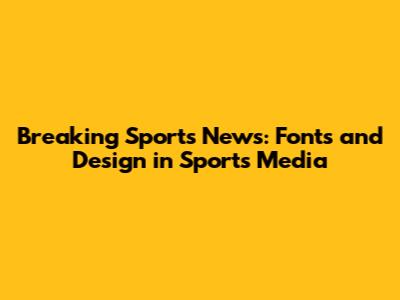
Breaking Sports News: Fonts And Design In Sports Media
Hey guys! Ever stopped to think about the fonts used in sports news? It might seem like a small detail, but the font and overall design of sports media can seriously impact how we perceive the information. Let's dive into the world where oscosoccsc, scsportssc, and news fonts collide, exploring how they shape our experience as sports fans.
The Power of Typography in Sports News
When it comes to delivering sports news, the font choice is more than just an aesthetic decision; it's a crucial element that influences readability, engagement, and the overall perception of the content. Think about it: a clear, modern font can convey a sense of trustworthiness and professionalism, while a cluttered or outdated font might make the news source seem less credible. In the fast-paced world of sports, where updates and breaking stories are constantly emerging, the ability to quickly and easily digest information is paramount. This is where typography steps in as a silent but powerful communicator. Fonts used in headlines need to grab attention instantly, while the body text requires a design that ensures comfortable reading for extended periods. The selection of a font involves balancing visual appeal with functional clarity. Moreover, different sports may evoke different feelings, and the font can be chosen to reflect that. For instance, a sleek, sans-serif font might be perfect for a high-tech sports broadcast, while a more traditional serif font could lend gravitas to a historical sports documentary. The impact of a well-chosen font extends to branding as well. Consistent use of specific fonts across a sports news outlet's platforms—website, social media, and broadcast—can reinforce brand recognition and loyalty. This consistency helps create a cohesive identity that fans can easily identify and trust. Ultimately, the power of typography in sports news lies in its ability to enhance the storytelling, making the information more accessible and engaging for the audience. So next time you're reading up on your favorite team, take a moment to appreciate the font; it's working harder than you might think to keep you informed and entertained.
Decoding "oscosoccsc" and "scsportssc"
Okay, let's be real. "oscosoccsc" and "scsportssc" might look like a jumble of letters at first glance, but they probably represent specific categories, hashtags, or even internal codes used within a sports news organization. Imagine oscosoccsc being an internal tag for soccer news, maybe used by editors to quickly sort and categorize content. Similarly, scsportssc could easily stand for South Carolina Sports News. These abbreviations help streamline the flow of information within newsrooms, especially when dealing with a high volume of stories coming in from various sources. Think of it like this: news organizations need efficient ways to manage their content. Tags and categories are essential tools for keeping everything organized and easily searchable. Without these internal systems, it would be chaos trying to find specific articles or updates within their databases. Moreover, these tags might extend beyond internal use. They could also appear as hashtags on social media platforms, allowing fans to quickly find relevant news and engage in conversations. A well-crafted hashtag can significantly increase the visibility of a news story, drawing in more readers and sparking discussions. So, while oscosoccsc and scsportssc may not be immediately recognizable to the average sports fan, they play a vital role in the behind-the-scenes operations of sports news outlets, ensuring that information is delivered efficiently and effectively. They exemplify how even seemingly obscure details can contribute to the overall functioning of the sports media ecosystem.
News Fonts: A Deep Dive
The font used in news, especially sports news, plays a huge role in how we process information. The right font can make reading a breeze, while the wrong one can turn it into a total chore. Think about the fonts you see on your favorite sports websites or apps. Chances are, they're clean, legible, and easy on the eyes. This is no accident! News organizations carefully select fonts that enhance readability and convey a sense of professionalism. Serif fonts, like Times New Roman or Georgia, have small decorative strokes at the end of each letter. These fonts are often used for body text because they're considered easy to read in large blocks. Sans-serif fonts, like Arial or Helvetica, lack these decorative strokes and tend to look more modern and clean. They're often used for headlines and subheadings to grab attention. Beyond readability, fonts also have a psychological impact. A bold, strong font can convey authority and confidence, while a lighter, more elegant font might suggest sophistication. News organizations use these subtle cues to influence how we perceive the information they're presenting. For example, a serious investigation might use a more traditional and authoritative font, while a lighthearted sports blog might opt for a more playful and modern font. Moreover, the choice of font can also reflect the overall branding of the news organization. Consistent use of specific fonts across all platforms—website, social media, and print—helps create a cohesive and recognizable brand identity. This consistency builds trust and reinforces the organization's credibility. Ultimately, the selection of a news font is a strategic decision that balances readability, aesthetics, and branding. It's a crucial element in shaping the overall user experience and ensuring that the information is delivered effectively.
The Intersection of Design and Readability
The intersection of design and readability is where the magic happens in sports news. It's not just about picking a pretty font; it's about creating a visual experience that makes the information accessible and engaging. Think about how the layout of a sports website influences your reading habits. A well-designed site uses white space effectively, breaks up text into manageable chunks, and uses headings and subheadings to guide you through the content. These design elements work together to improve readability and prevent eye strain. Color also plays a crucial role. The colors used in the background, text, and graphics can impact how easily you can read the text. High contrast between the text and background is essential for readability, especially for users with visual impairments. The use of images and videos can also enhance readability by breaking up large blocks of text and providing visual context for the news stories. A compelling image can draw you into the story and make you more likely to read the accompanying text. Moreover, responsive design is critical in today's multi-device world. A sports website or app should adapt seamlessly to different screen sizes and resolutions, ensuring a consistent and enjoyable reading experience on desktops, tablets, and smartphones. The design should also consider the needs of all users, including those with disabilities. Accessibility features, such as alt text for images and captions for videos, can make the content more accessible to users with visual or auditory impairments. Ultimately, the goal of design is to enhance readability and make the information as accessible as possible. A well-designed sports news platform is not only visually appealing but also highly functional, ensuring that readers can easily find and digest the information they're looking for.
Future Trends in Sports Media Fonts
Looking ahead, the future of fonts in sports media is bound to get even more interesting. With technology constantly evolving, we can expect to see some exciting new trends emerge. One trend is the increasing use of variable fonts. Variable fonts allow designers to adjust various aspects of the font, such as weight, width, and slant, all within a single font file. This gives them more flexibility and control over the typography, allowing them to create unique and dynamic designs. Another trend is the growing popularity of custom fonts. Sports news organizations are increasingly commissioning custom fonts that reflect their brand identity and set them apart from the competition. A custom font can help create a distinctive visual identity and reinforce brand recognition. We can also expect to see more experimentation with typography in interactive media. As sports news becomes more interactive, with features like live scoreboards, real-time updates, and social media integration, fonts will play an increasingly important role in creating engaging and immersive experiences. For example, fonts might be used to highlight key stats, display breaking news alerts, or create visual representations of data. Accessibility will also continue to be a major focus. As sports news organizations strive to reach a wider audience, they will need to ensure that their fonts are accessible to users with disabilities. This means choosing fonts that are easy to read, even for users with visual impairments, and providing alternative text for images and other visual elements. Ultimately, the future of fonts in sports media is about pushing the boundaries of creativity and innovation while ensuring that the information remains accessible and engaging for all users. We can expect to see more personalized and dynamic typography, as well as a greater emphasis on accessibility and user experience. So keep an eye out for these trends as you consume your daily dose of sports news!